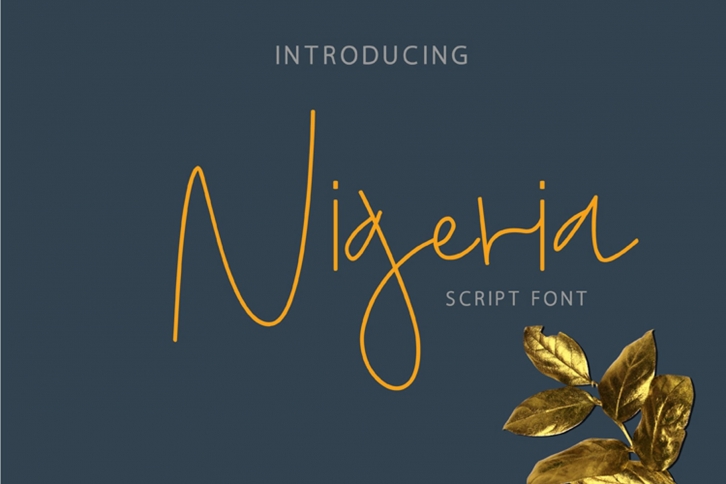
Nigeria it is a casual signature font with exquisite accents. When you type with this font, you get absolutely realistic lettering. Oh, I don't understand, is this computer-generated or
handwritten? :)
It is perfect for branding, wedding invitations and invitation cards and many more
Fonts include a full set of gorgeous uppercase and lowercase letters, numbers, a large selection of punctuation marks & ligatures
- Uppercase and lowercase
- Numbers and punctuation